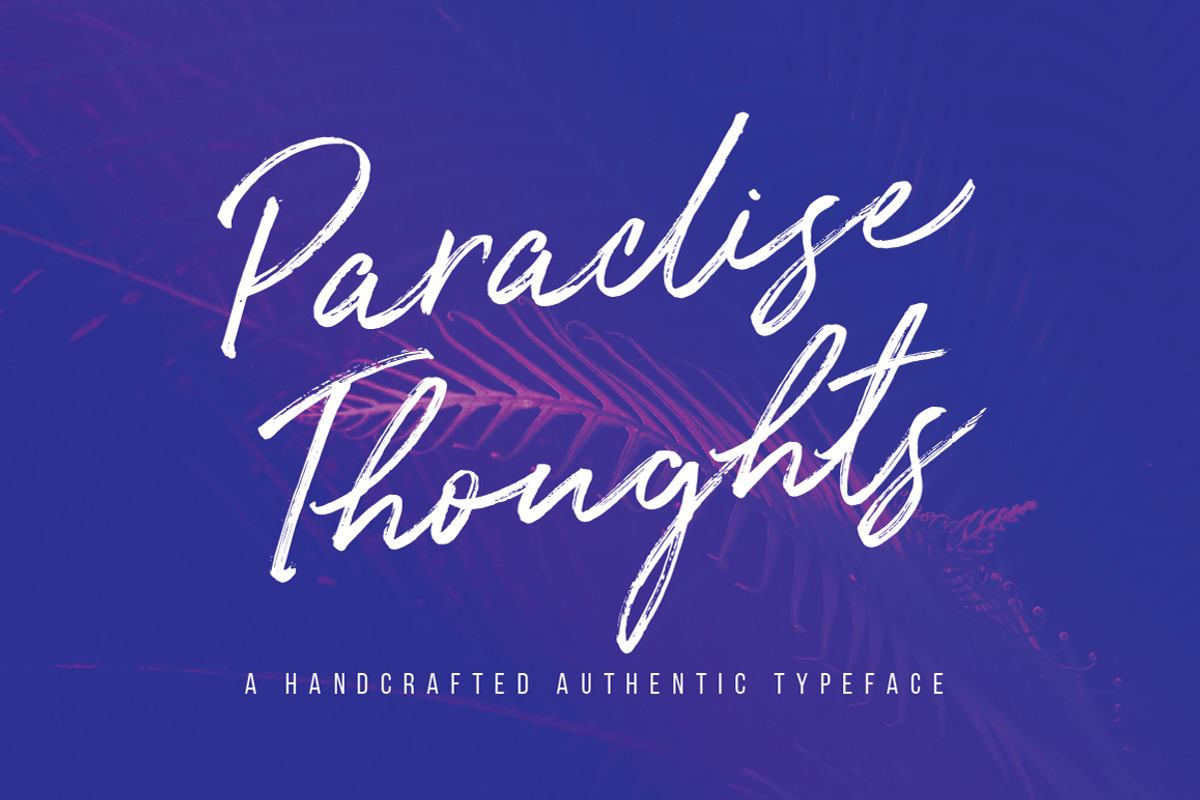
Paradise Thoughts Typeface Free Download is a beautiful and whimsical typeface designed to add a dreamy, artistic touch to your designs. With its unique blend of smooth curves and elegant letterforms, this font is perfect for creating logos, invitations, branding, and creative projects that require a touch of sophistication and personality. Its flowing, modern style evokes a sense of creativity and warmth, making it ideal for weddings, personal branding, and lifestyle projects. Whether you’re working on a luxury brand, designing a heartfelt invitation, or crafting an engaging campaign, Paradise Thoughts Typeface Free Download allows you to explore its elegant charm in personal projects before purchasing a commercial license. Add a touch of beauty and creativity to your designs with this stunning typeface.